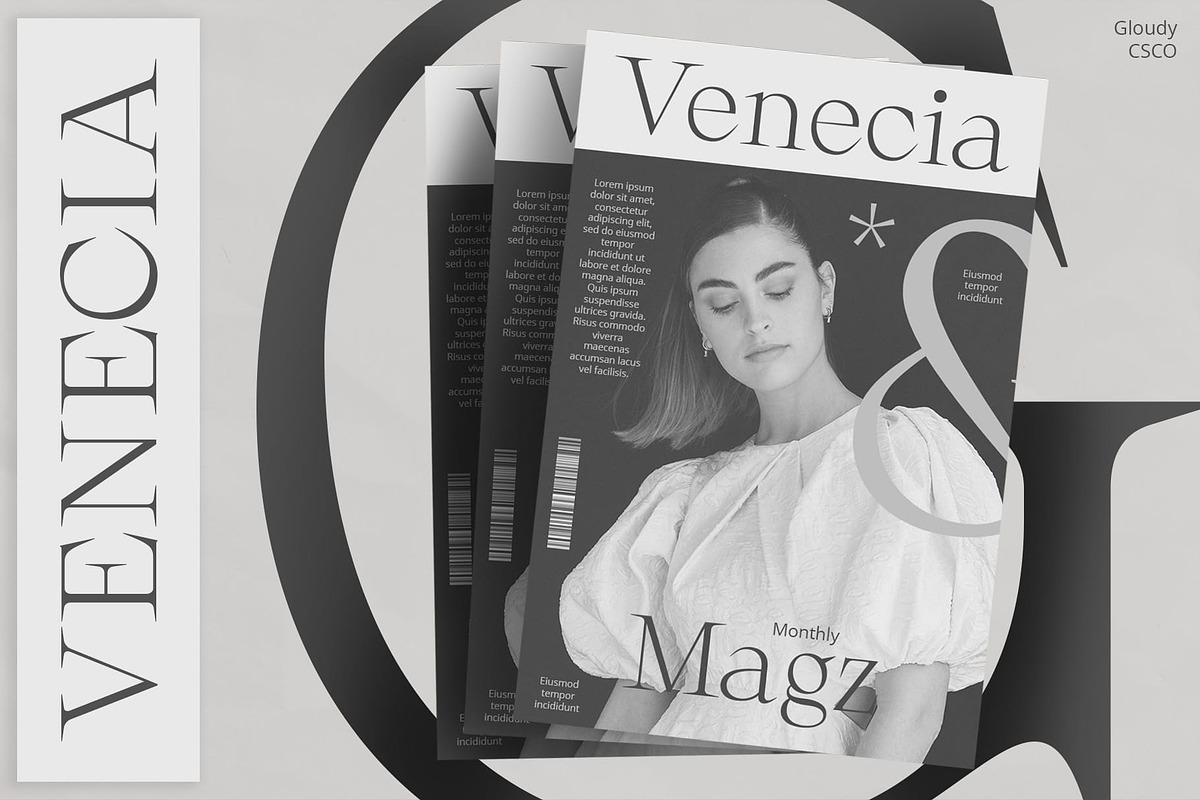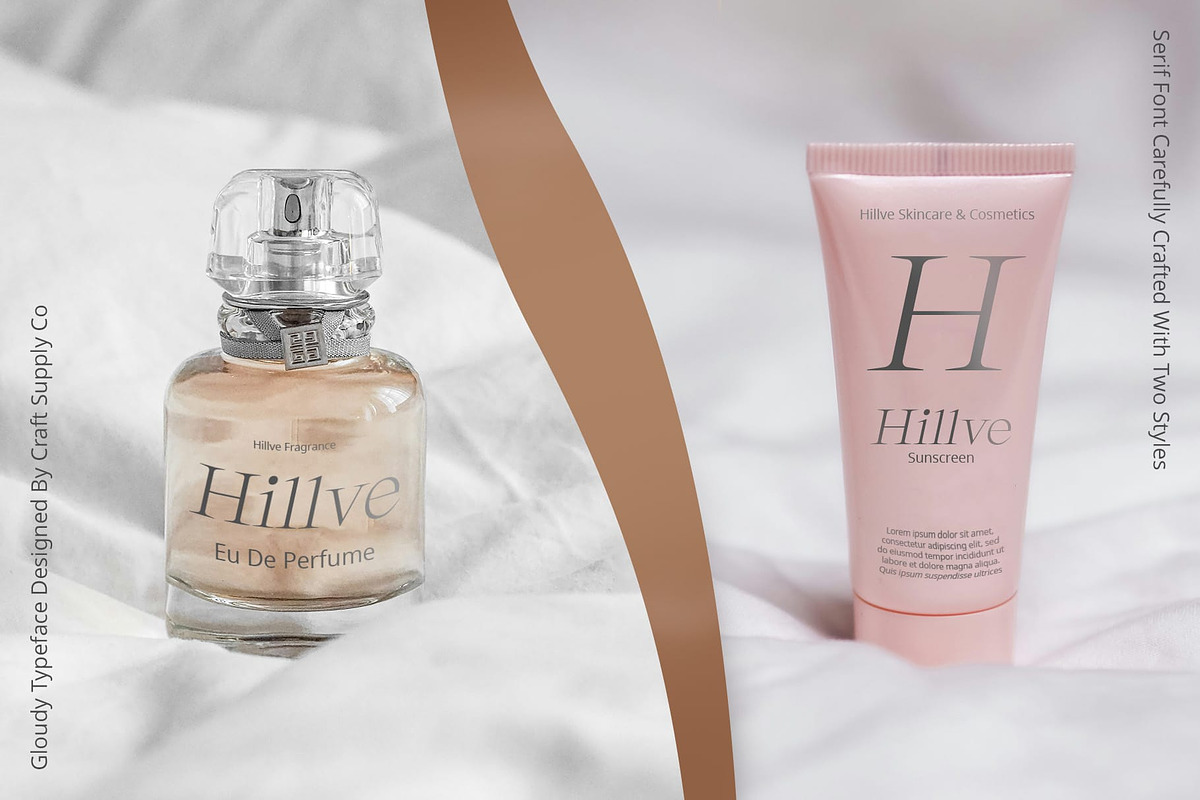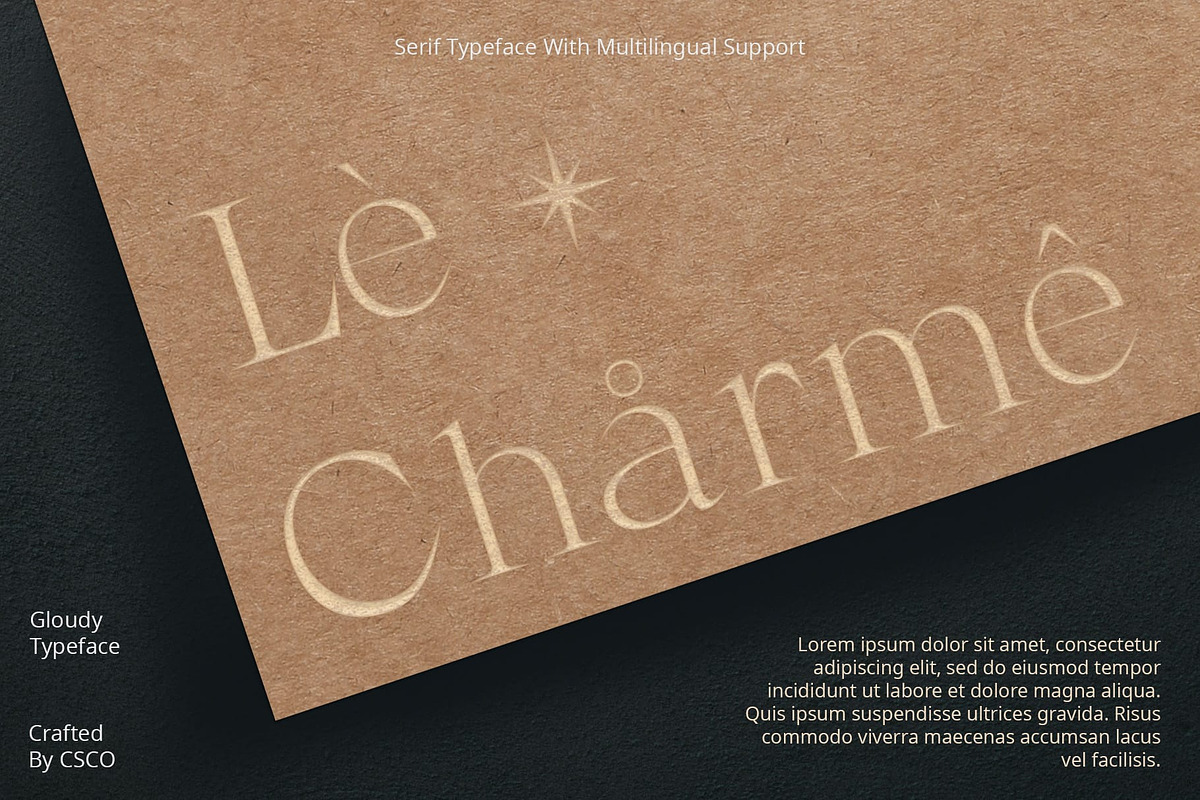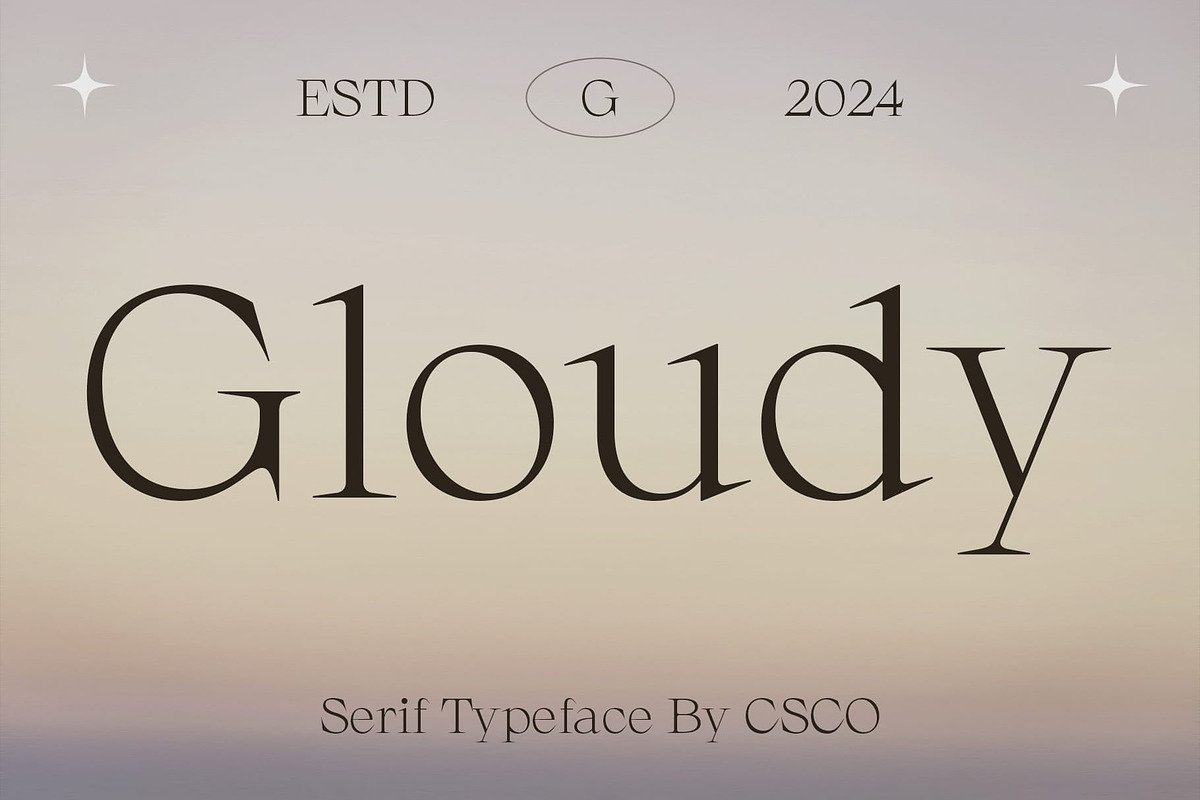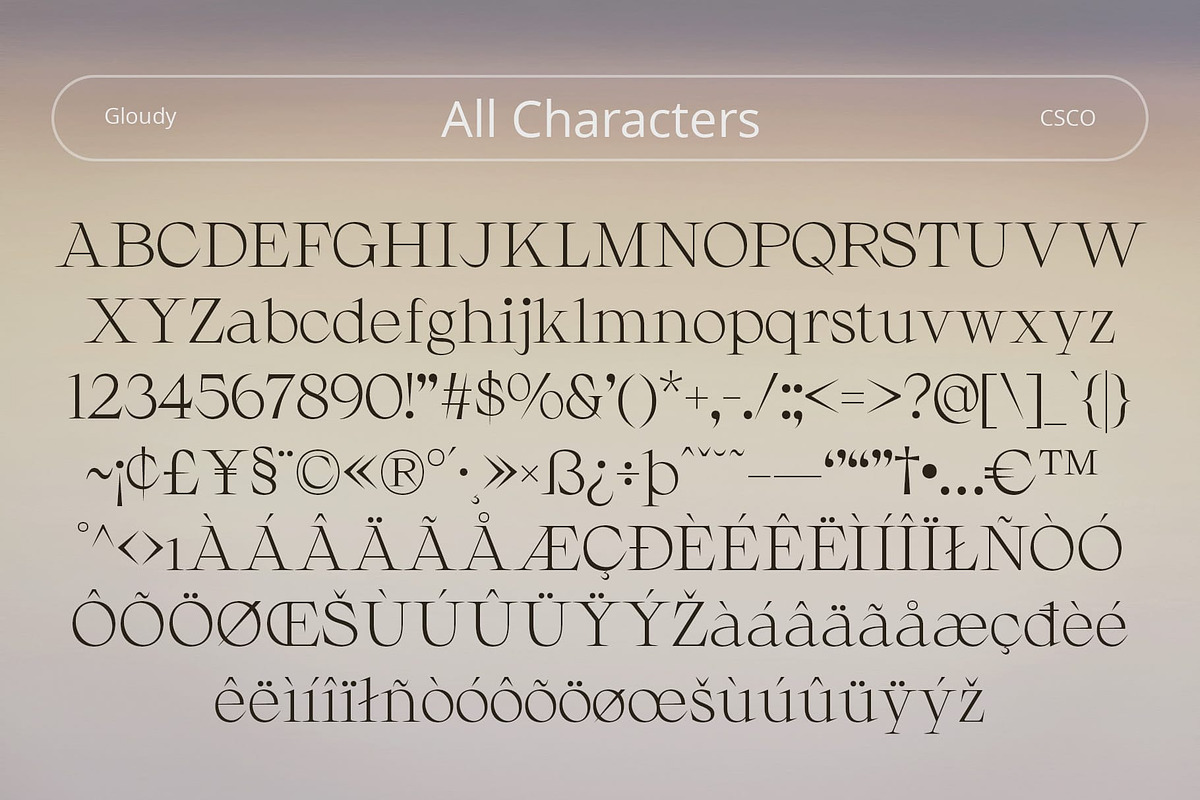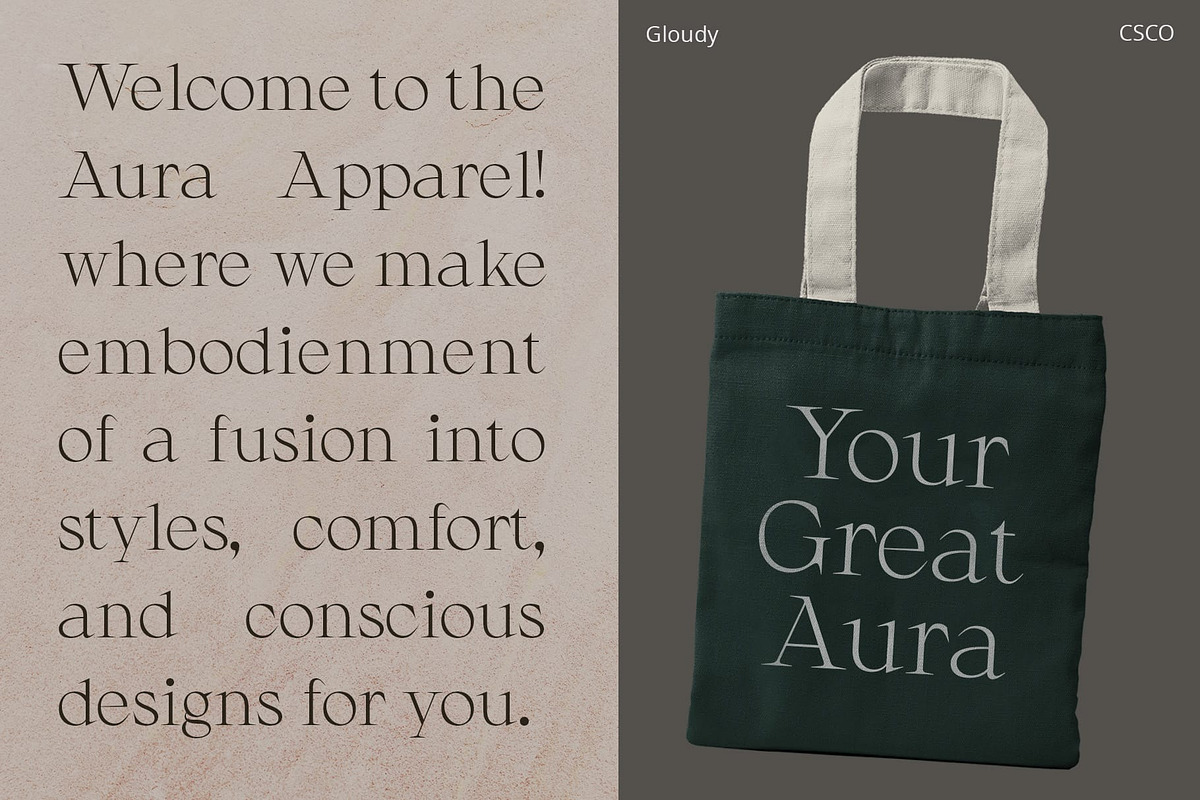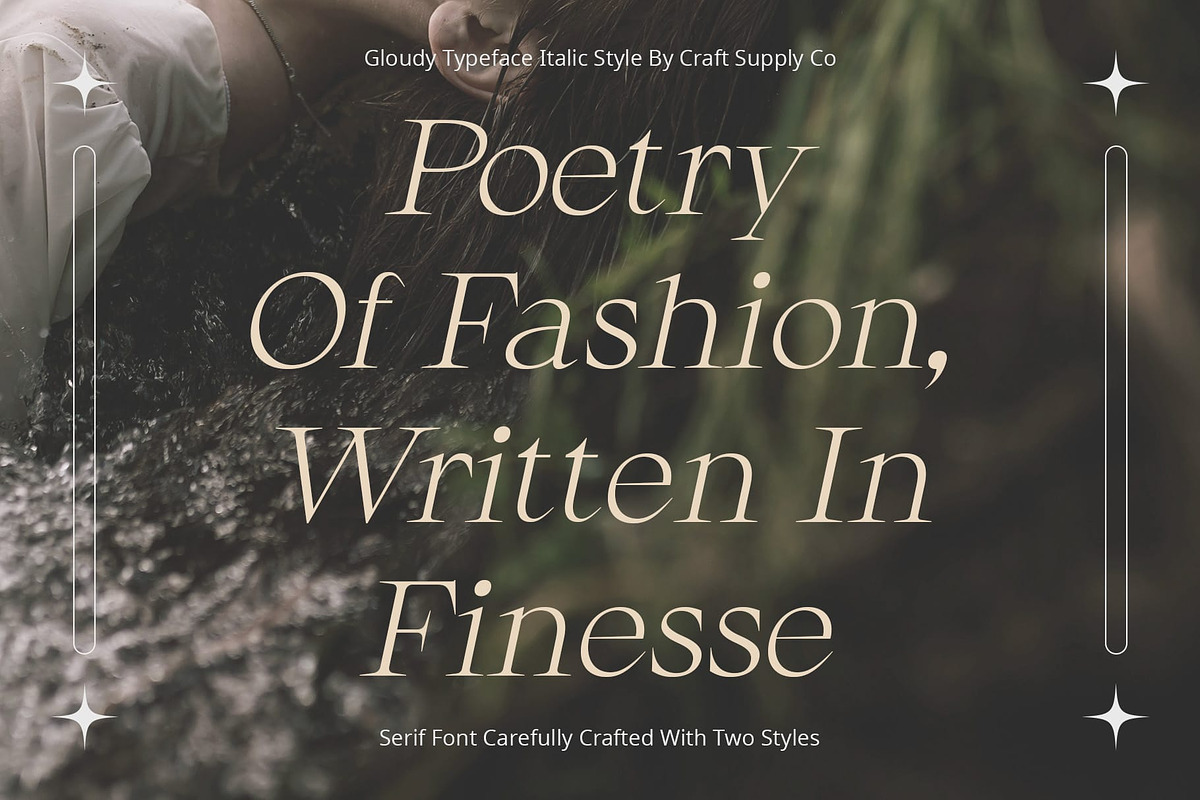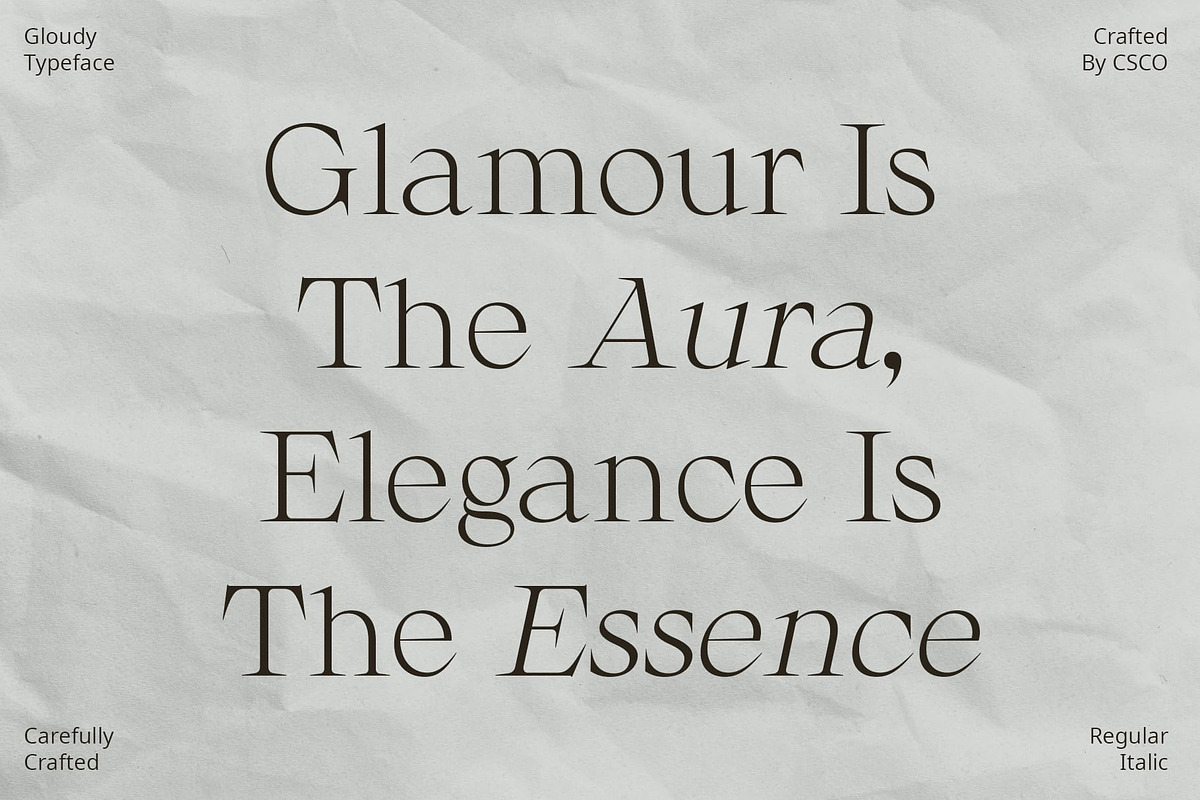
Gloudy – Modern Serif
Gloudy – Modern Serif: Elevating Elegance with Subtle Contrast
Elegance Redefined Gloudy Modern Serif epitomizes elegance with its refined serif design and moderate contrast. Each character exudes sophistication, making it ideal for upscale displays and formal corporate settings.
Subtle Contrast for Sophistication With its moderate contrast, This font strikes the perfect balance between elegance and readability. The subtle variation in stroke thickness adds depth and sophistication to every character, enhancing the overall visual appeal.
Sharp Serifs for Impact This sharp serifs command attention and leave a lasting impression. The pointed terminals add a touch of refinement, making it a standout choice for both display purposes and formal applications.
Versatile for Display and Formality From high-end branding to corporate documents, This Modern Serif is versatile for a range of design needs. Its elegant demeanor and sharp serifs make it equally suitable for captivating displays and conveying professionalism in formal settings.
Elevating Formality with Elegance This Modern Serif offers a refined serif design with moderate contrast, perfect for elevating elegance in both display and formal applications. Its sharp serifs and versatile nature make it a sophisticated choice for various design needs.